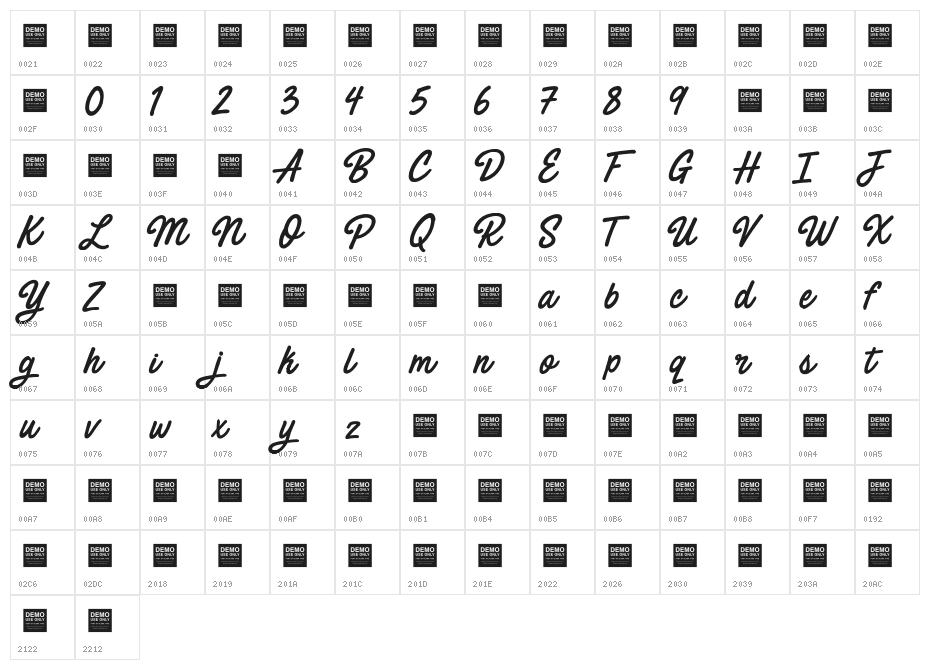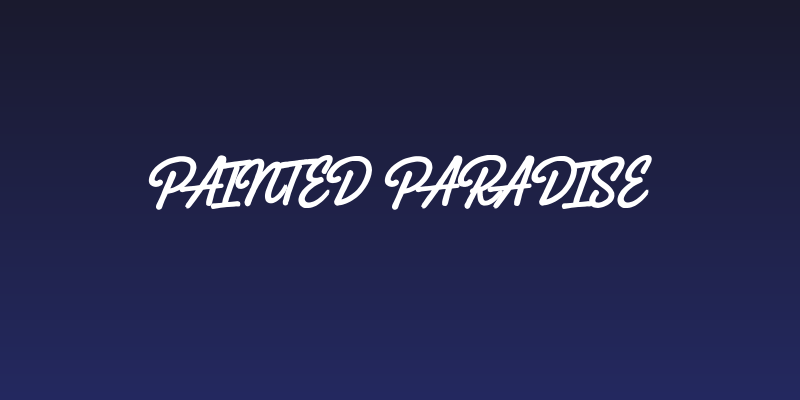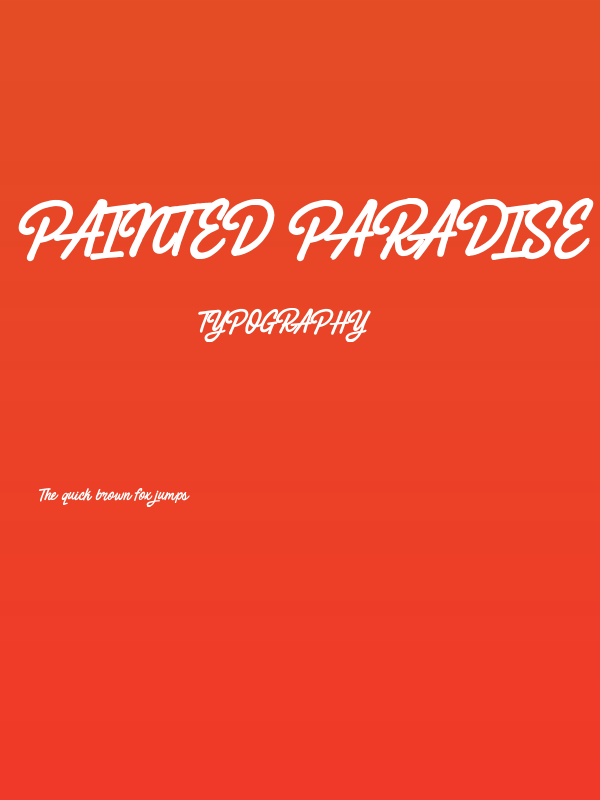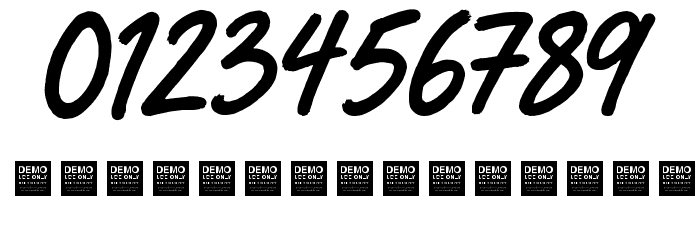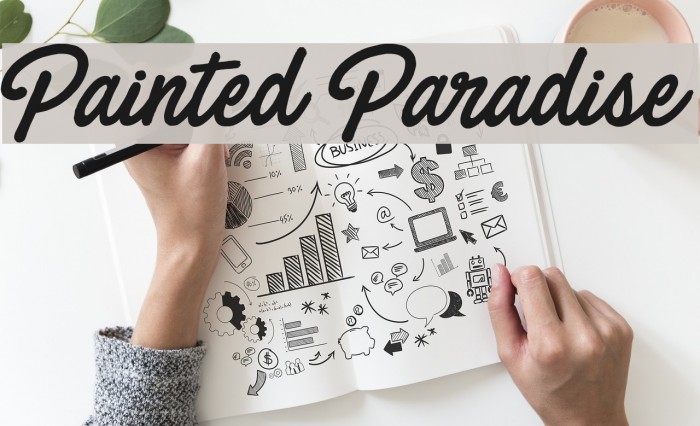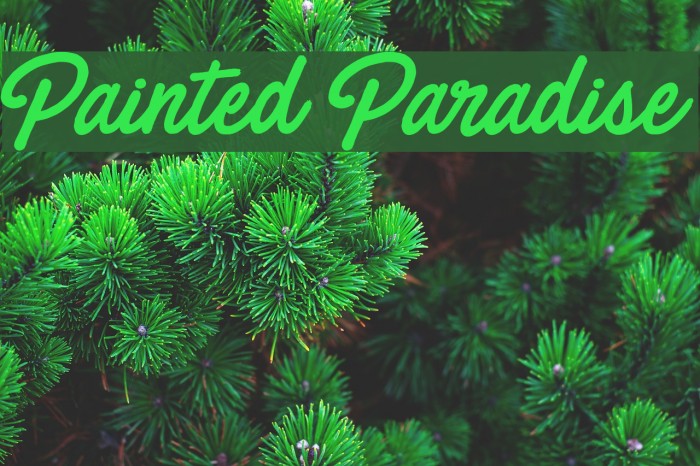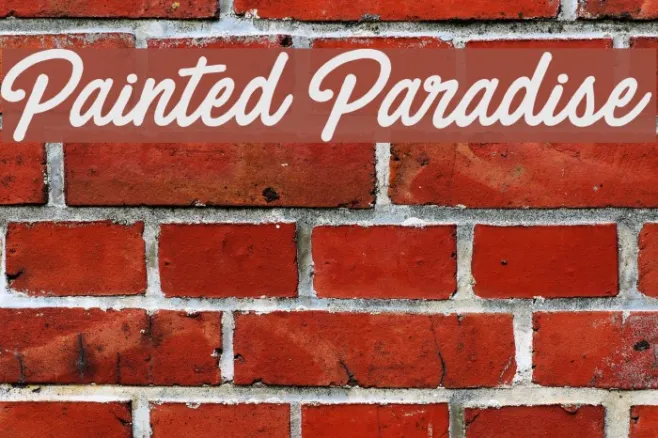
Painted Paradise Font
Painted Paradise Description
This font features a dynamic and fluid script style, characterized by its smooth, flowing lines and elegant curves. The letters are interconnected, creating a sense of continuity and movement. The strokes are bold and confident, with a slight slant that adds to its casual yet sophisticated appearance. This font exudes a handwritten charm, making it ideal for projects that require a personal touch. The numerals and special characters maintain the same stylistic flair, ensuring consistency across all text elements.